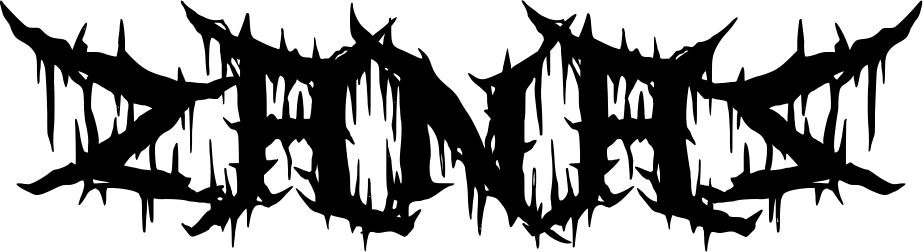
Zanaz Font
Zanaz font is one of the scariest death metal fonts you have ever seen in your life. Sharp lines that look like drops of blood will have a special place in your Halloween flyer. In addition, you can use it to design deat…
Zanaz font is one of the scariest death metal fonts you have ever seen in your life. Sharp lines that look like drops of blood will have a special place in your Halloween flyer. In addition, you can use it to design death metal music covers and tattoo designs.
This heavy and horror font can be used to design T-shirts with elements such as bats, spiders, and many scary creatures and will attract your audience interested in challenging themes.